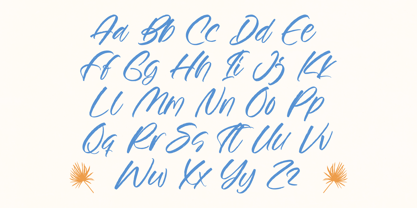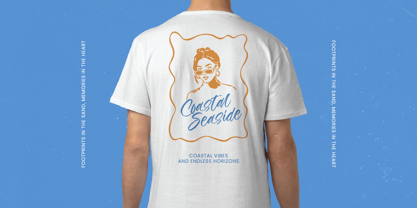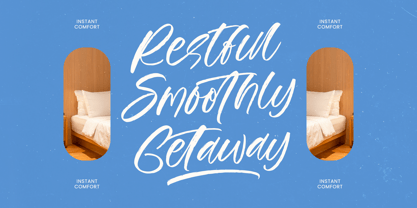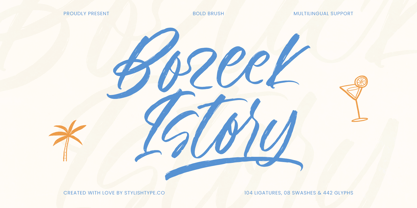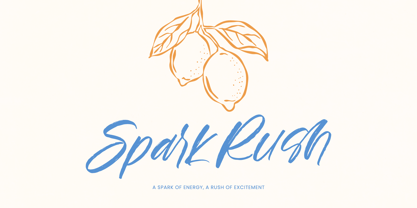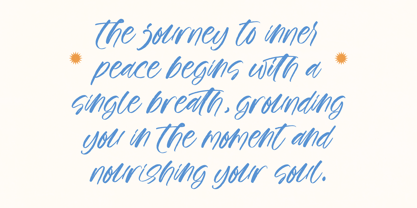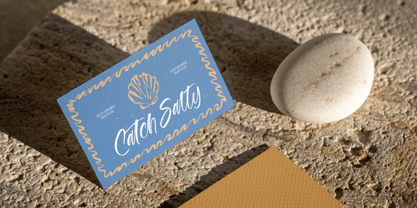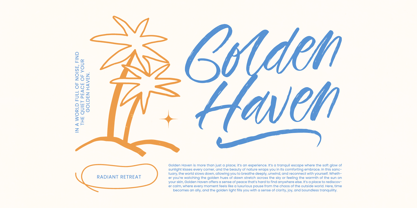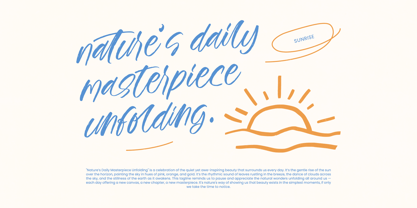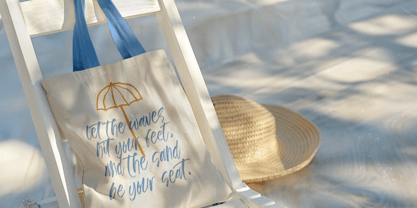
Bozeek Istory
by Stylishtype Studio
The Bozeek Istory Font Family was designed by Heru Utama Putra and published by Stylishtype Studio. Bozeek Istory contains 2 styles and family package options. More about this family
Bozeek Istory is a bold brush script typeface crafted to capture the raw energy and expressive charm of hand-painted lettering. Featuring dynamic strokes, textured edges, and fluid movement, this font delivers an authentic handwritten feel while maintaining strong readability. Designed for impactful visual storytelling,Bozeek Istory is perfect for branding, posters, social media graphics, packaging, summer campaigns, café menus, and lifestyle projects. With 104 ligatures, 8 swashes, and 442 glyphs, it offers extensive typographic flexibility and multilingual support, allowing designers to create seamless letter connections and stylish compositions. Whether used for bold headlines or expressive logo designs, Boreek Story brings vibrant personality and modern brush character to both print and digital applications.